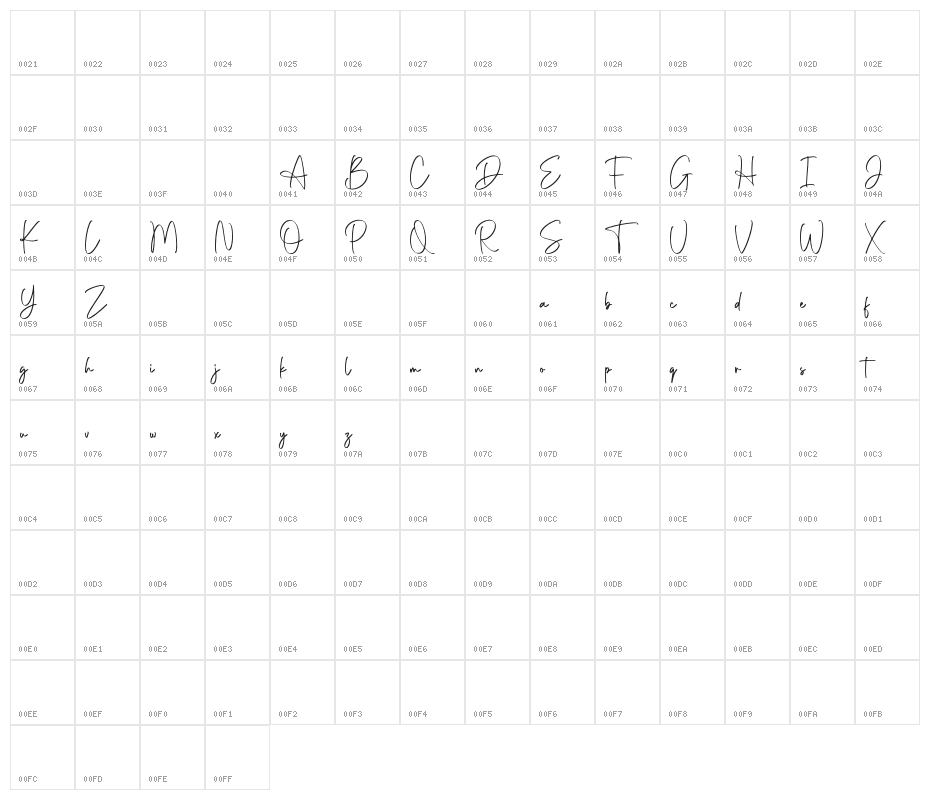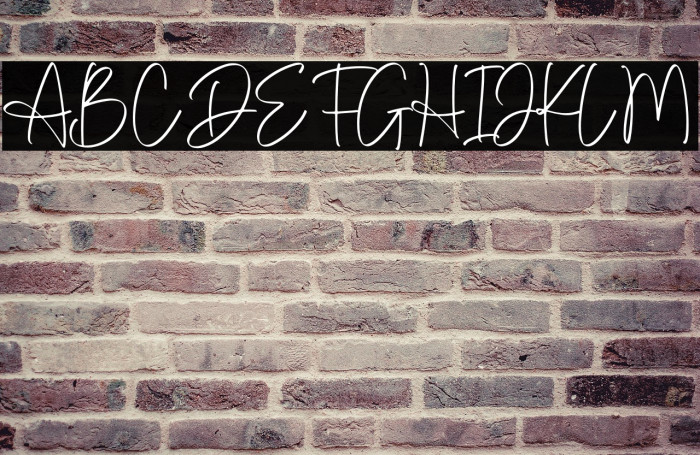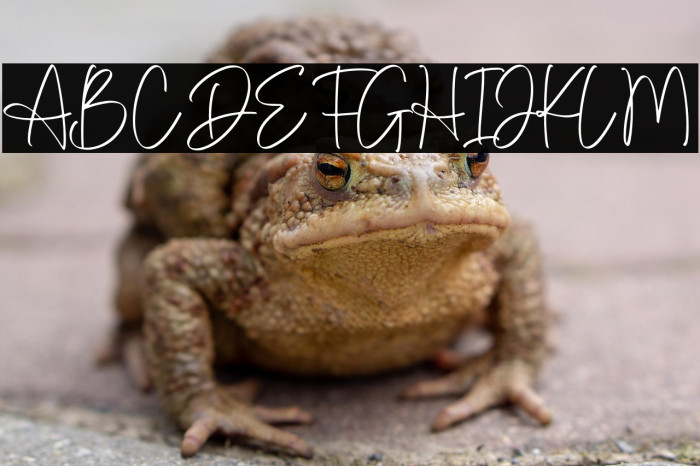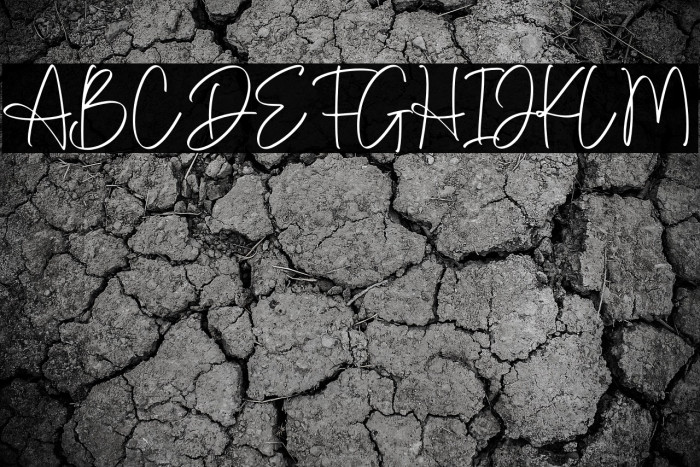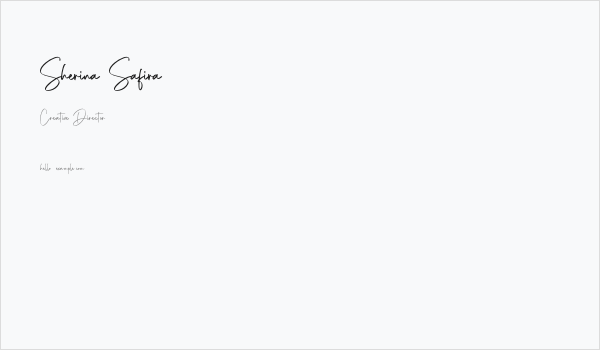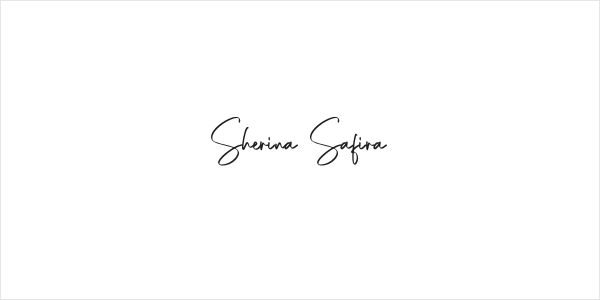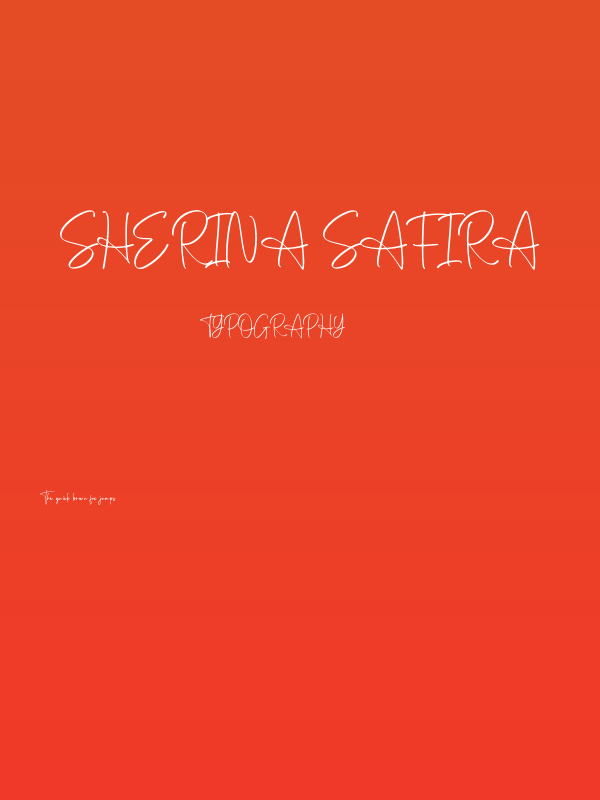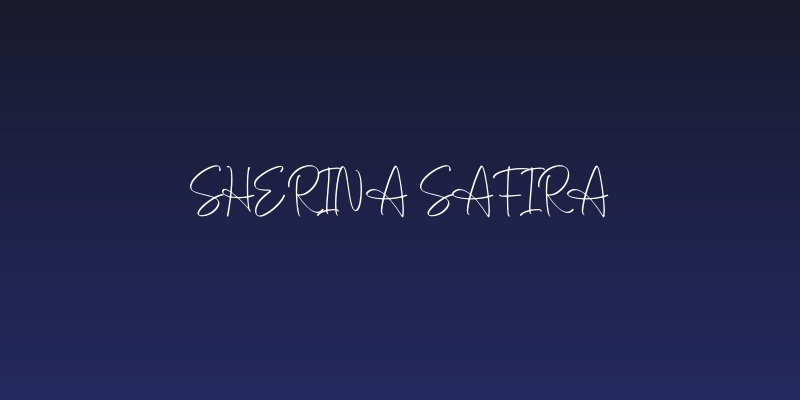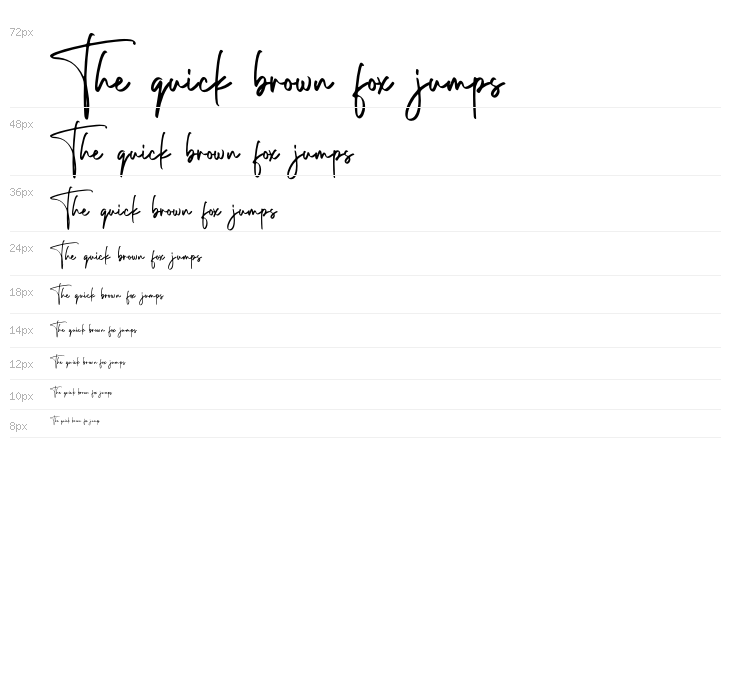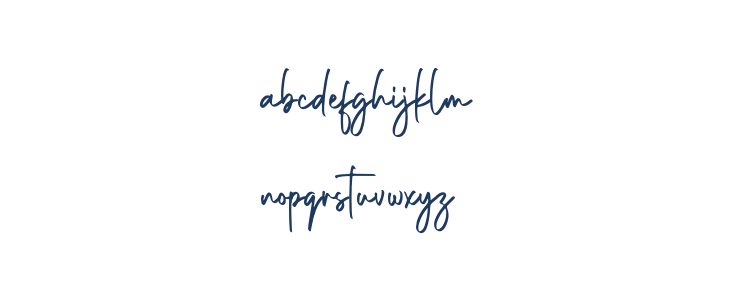
Sherina Safira Font
Sherina Safira Description
This font exhibits a lively and expressive handwritten style, characterized by its fluid and dynamic strokes. The uppercase letters are bold and sweeping, with a playful yet elegant flair. The lowercase letters maintain a consistent flow, enhancing the overall cohesiveness of the design. The font's organic curves and varying line thicknesses give it a personal touch, making it ideal for projects that require a humanistic and approachable feel. Its unique style is perfect for creative and artistic applications, where a touch of individuality is desired.